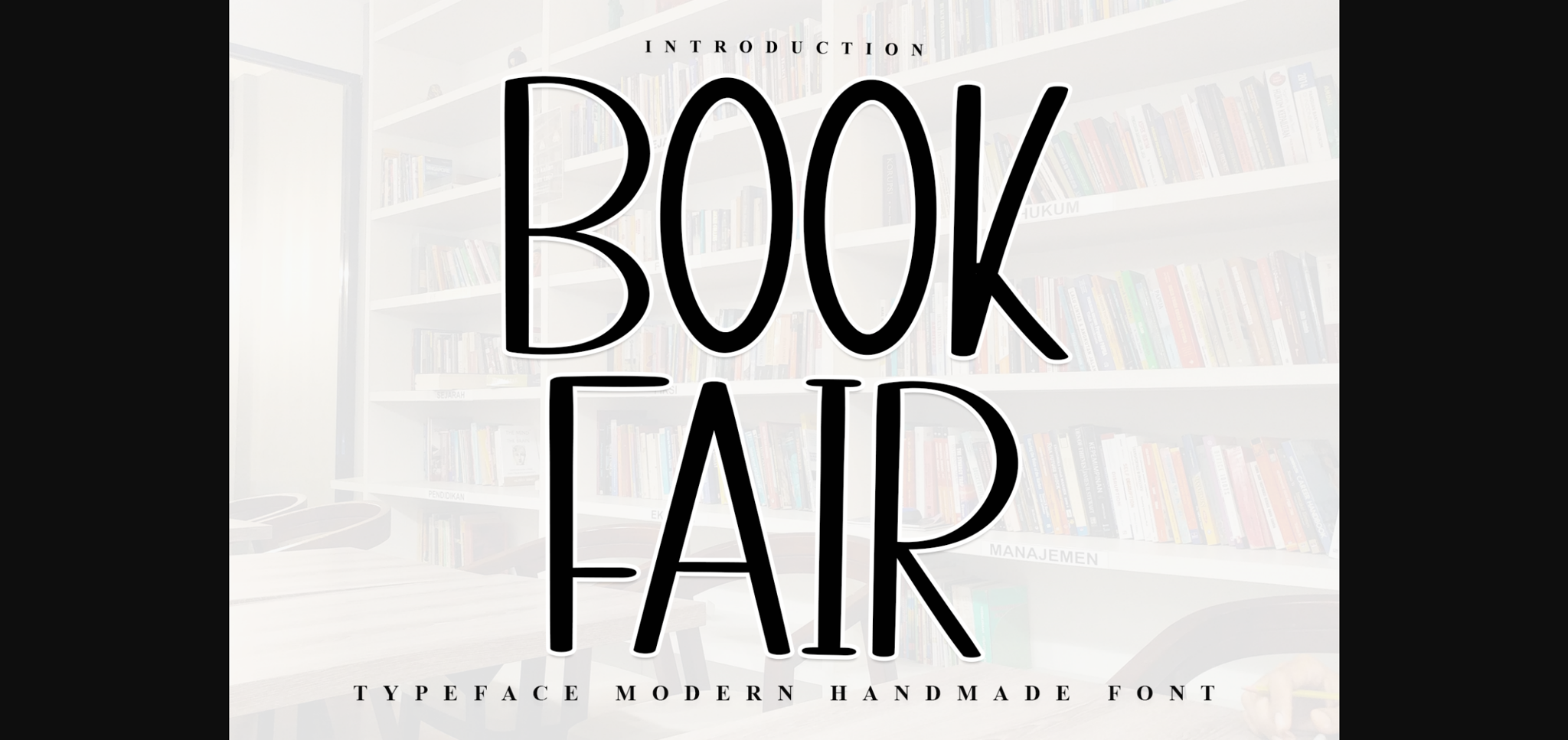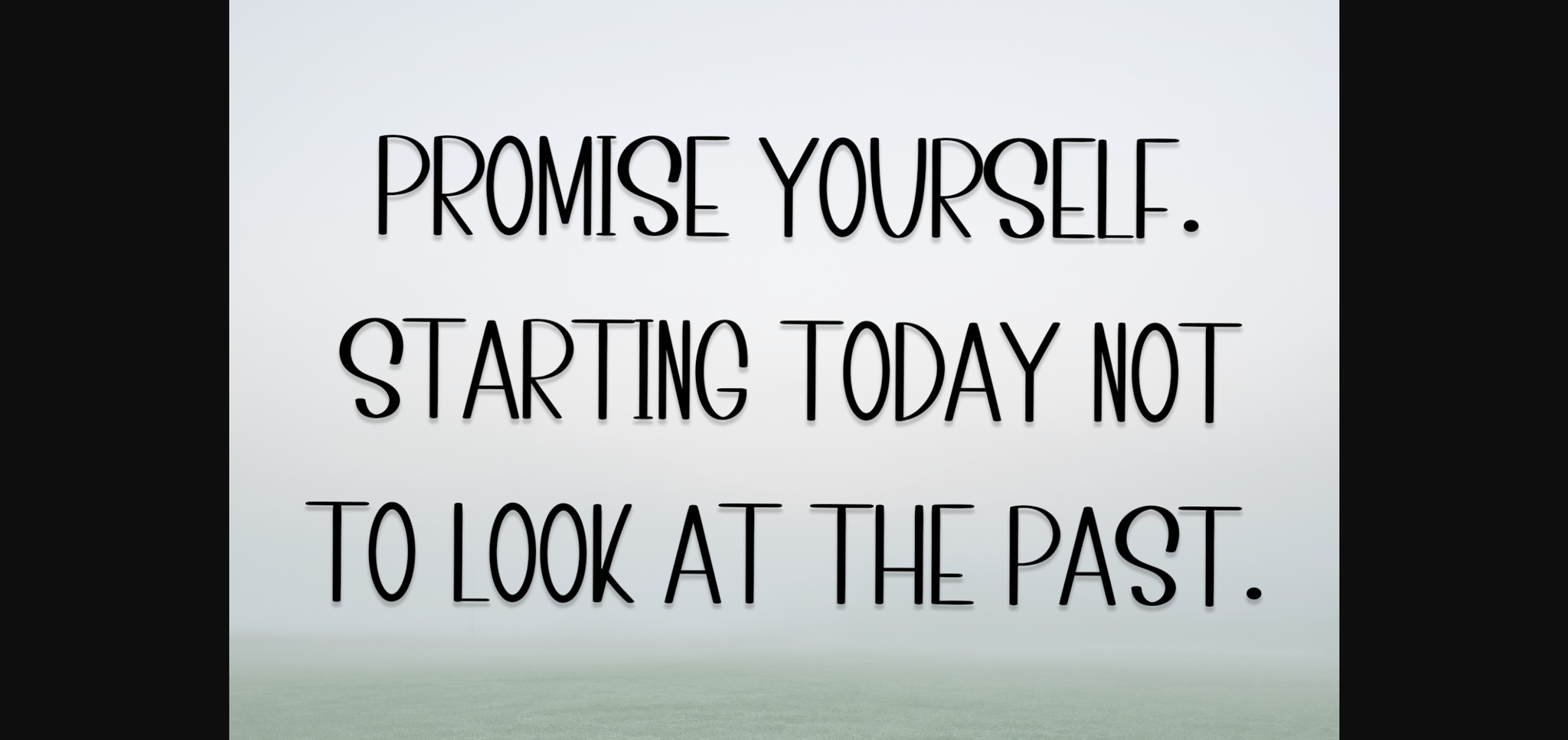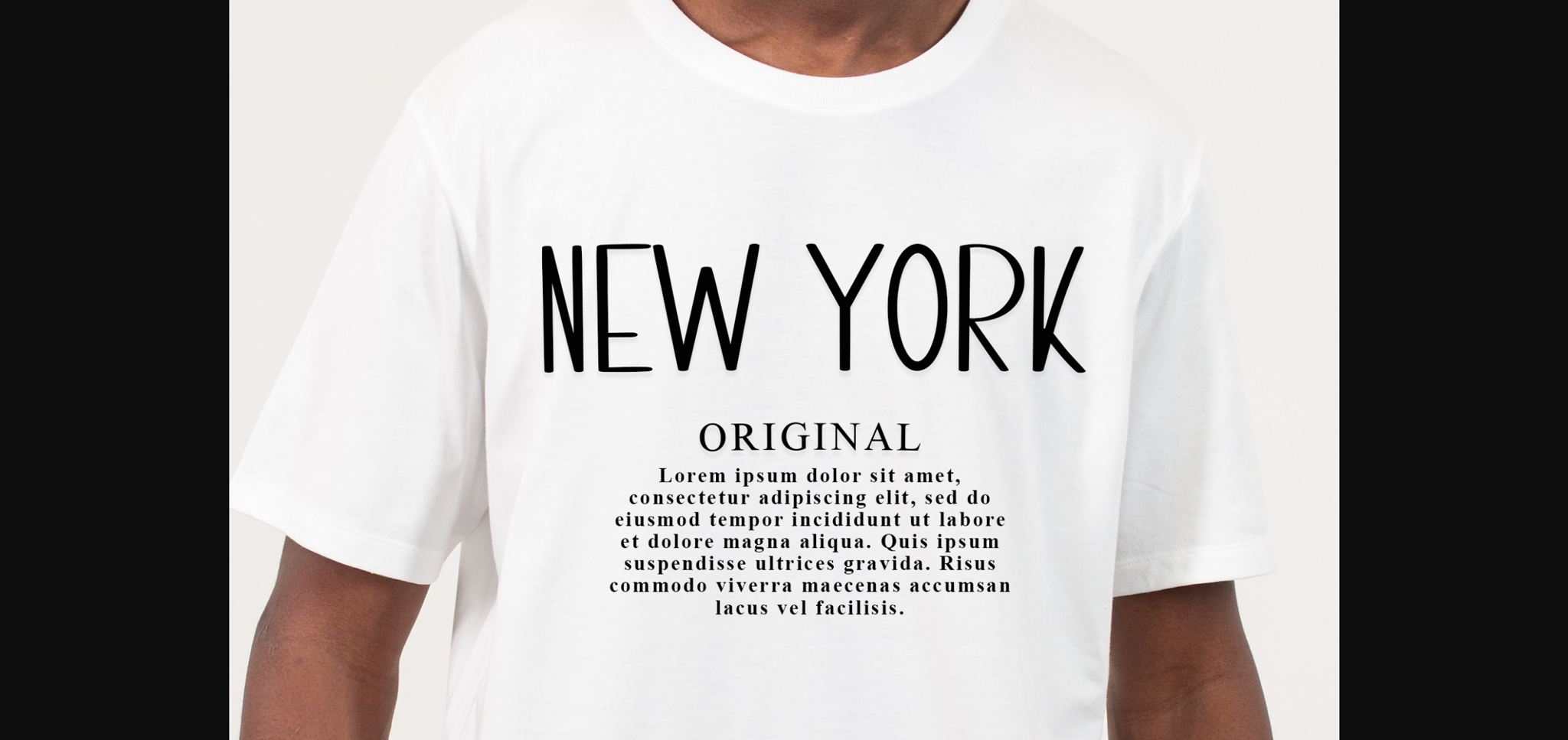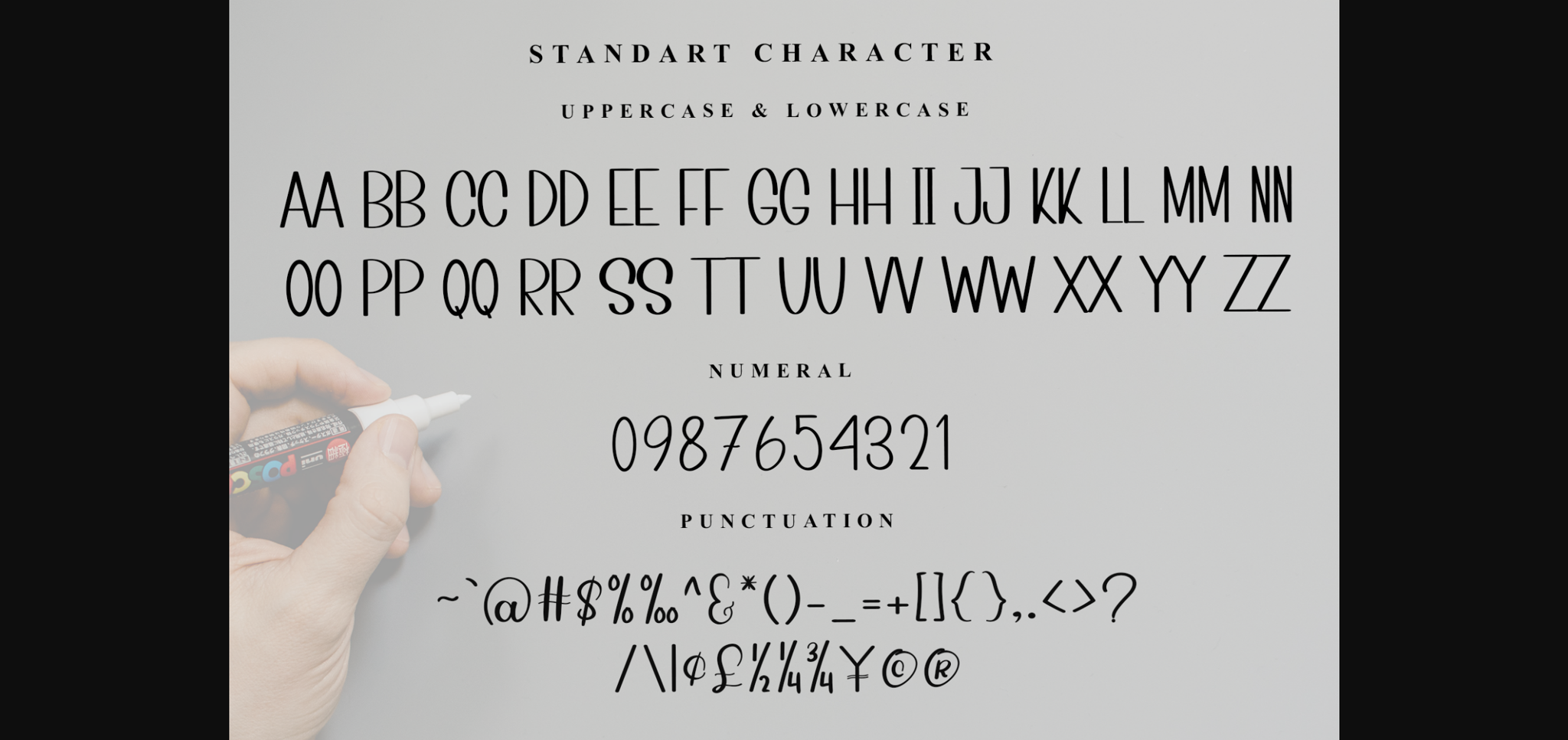
About Book Fair Font
Book Fair is a charming sans-serif font imbued with a sense of freshness and casual elegance. Its fluid strokes and organic lines evoke a laid-back vibe, making it perfect for various design projects. Whether used for branding, invitations, or social media graphics, Book Fair adds a touch of warmth and personality.